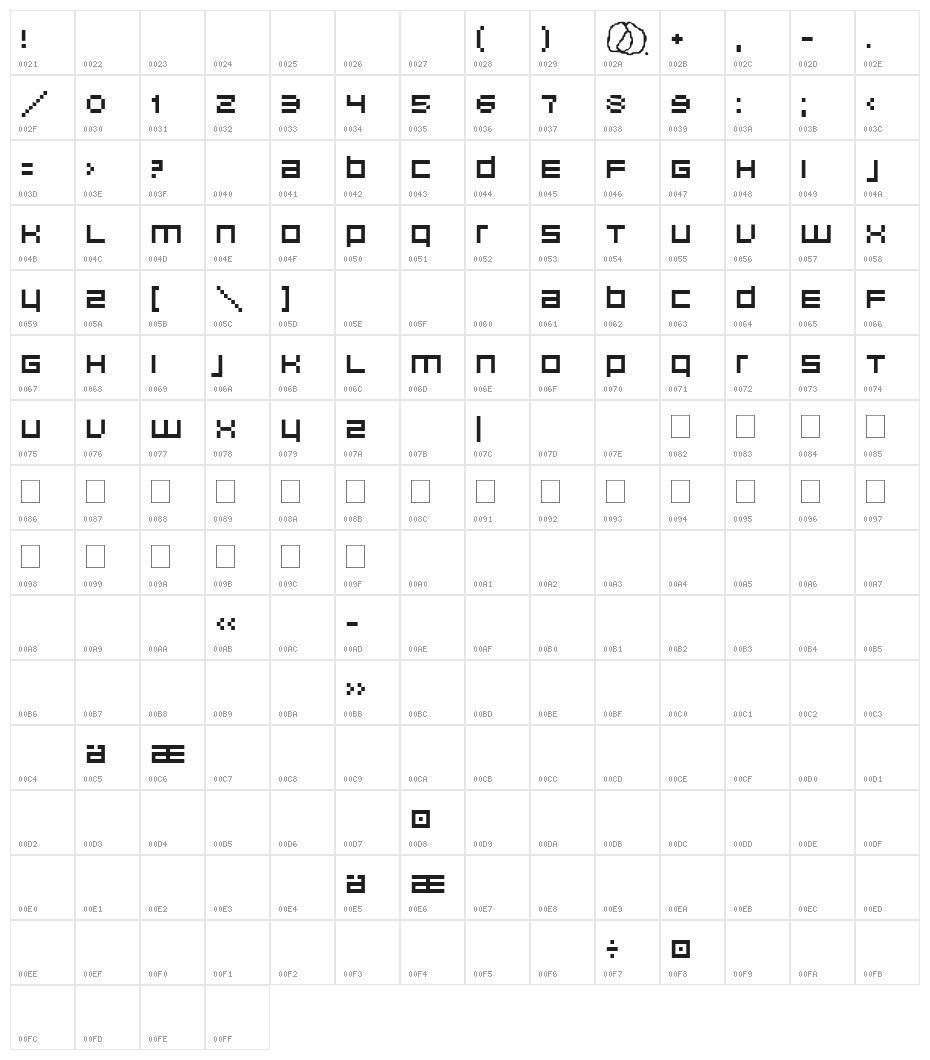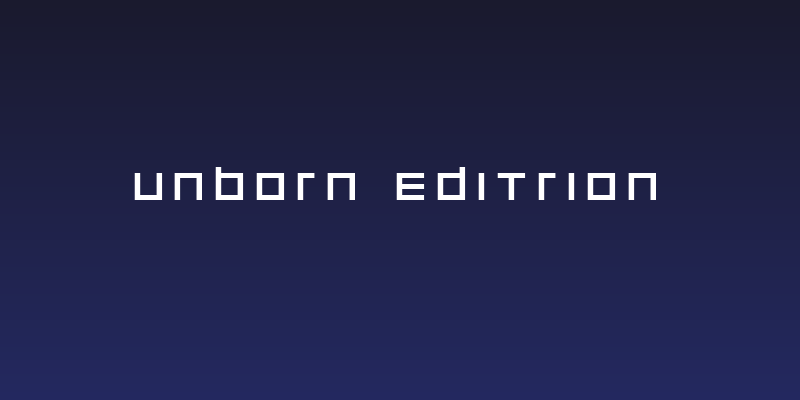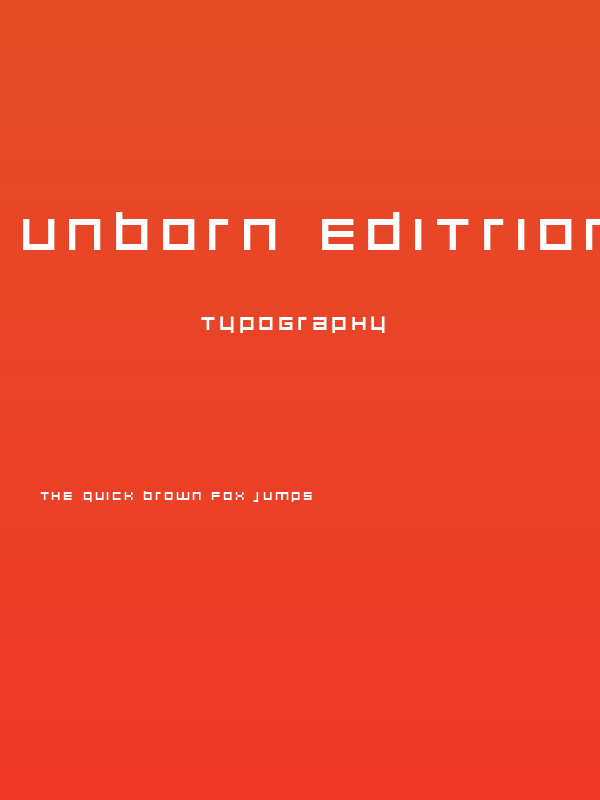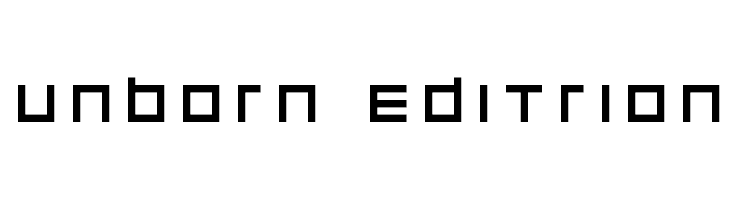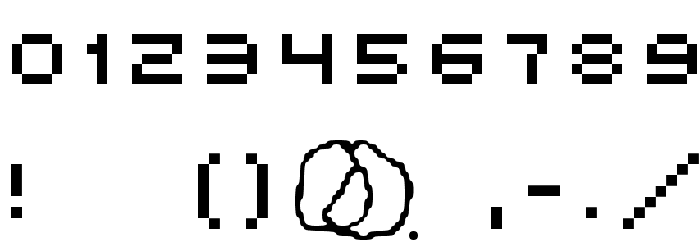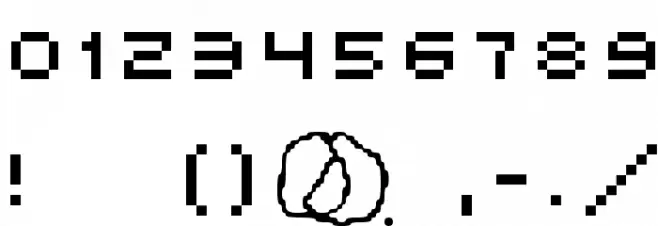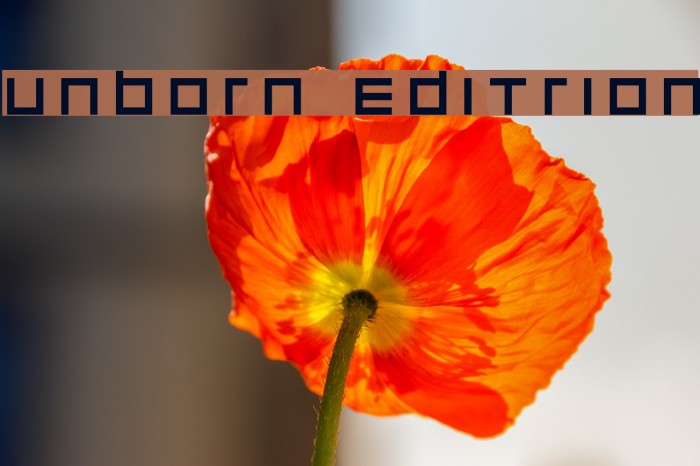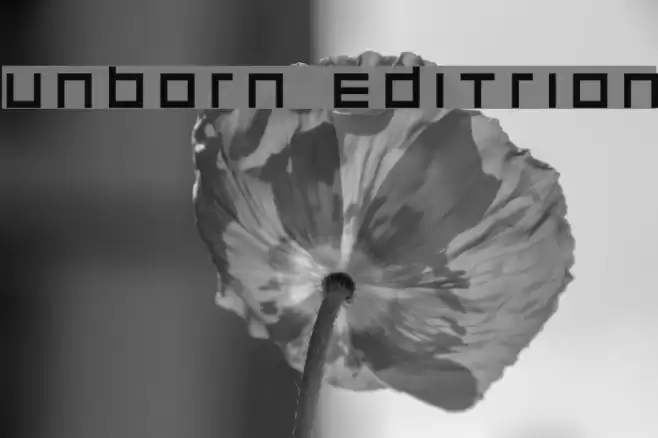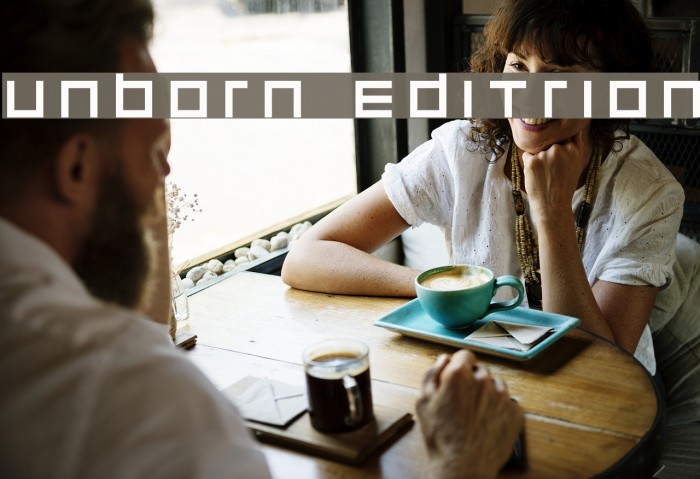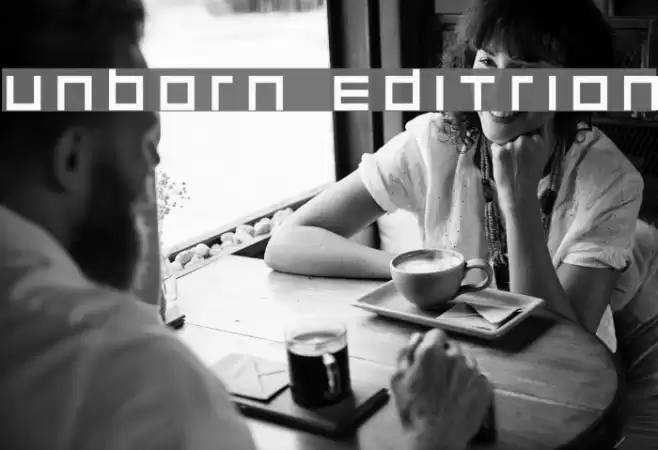
unborn editrion Font
✎ Pixel
| حالة الاستخدام | Headlines, Logos, Digital interfaces |
| مشاريع مقترحة | Ideal for tech-themed designs, video game graphics, digital art projects, and futuristic branding. |